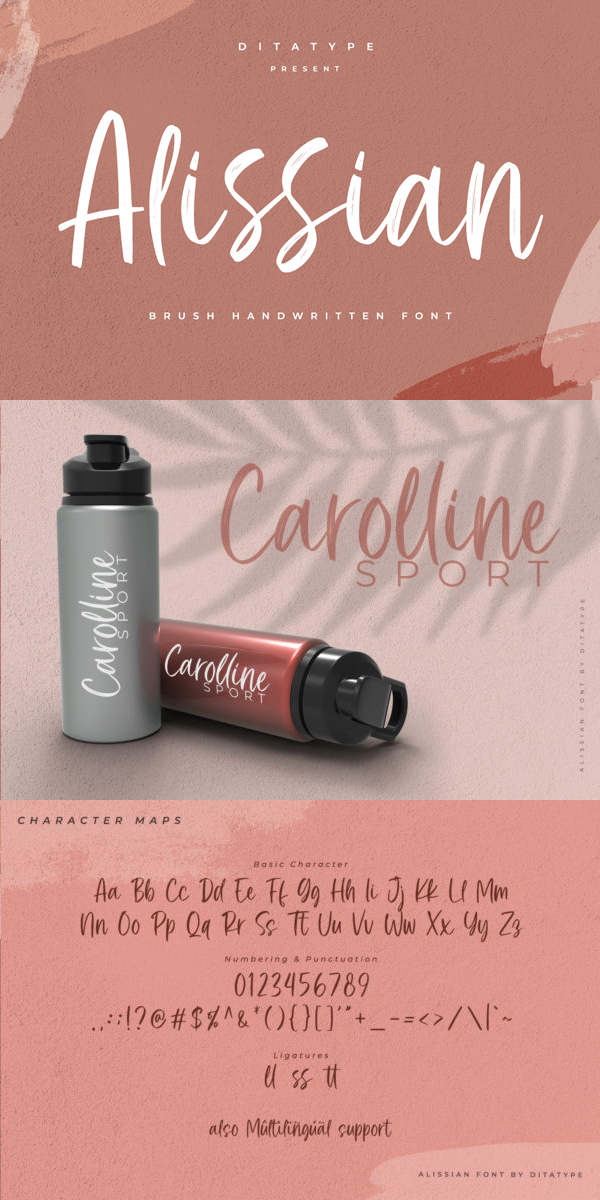
Alissian Font
About Alissian
Alissian is a modern handwritten font. With a classy and natural handwritten style, it brings a classy and chic typeface. Alissian is best used for weddings, branding, logotype, and quotes.
– Beautiful Ligatures